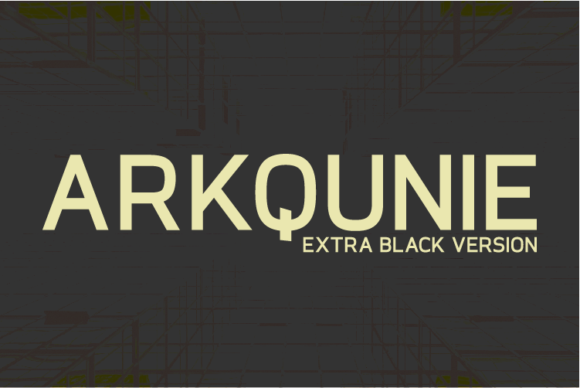
The Ultimate Design Game-Changer: Unleashing the Power of Arkqunie Extra Black Font
Ah, the eternal quest for the perfect font! I still remember the countless hours I spent on a project, searching for a font that would make my design pop. My client wanted something modern, yet approachable; bold, yet elegant. And, of course, it had to be versatile enough to work across various platforms and mediums. That’s when I stumbled upon the Arkqunie Extra Black Font, and let me tell you, it was love at first sight! ✨
• ✅ **Geometric sans serif perfection**: Arkqunie’s clean lines and geometric shapes make it perfect for a wide range of design projects.
• ✨ **Maximum flexibility**: With its casual and versatile design, Arkqunie can be used for headlines, postcards, business cards, logos, letterheads, magazines, posters, and so much more!
• 🔥 **Special features in every corner**: Each letter is carefully crafted with unique features that add a touch of personality to your designs.
• ⚠️ **Limited language support**: While Arkqunie supports a range of languages, it may not cover every language or character set.
• 🤔 **Some glyphs may require manual adjustment**: Depending on the design, you might need to tweak certain glyphs to achieve the perfect look.
The Designer Inspiration Behind Arkqunie
Arkqunie’s creator was inspired by the beauty of geometric shapes and the need for a versatile font that could adapt to various design contexts. With a passion for typography and a keen eye for detail, the designer crafted Arkqunie to be a go-to font for creatives seeking a modern, yet approachable look.
Q: What is the best use case for Arkqunie Extra Black Font?
A: Arkqunie Extra Black is perfect for headlines, titles, and bold statements, but it can also be used for body text and smaller design elements.
Q: Is Arkqunie suitable for multilingual designs?
A: While Arkqunie supports a range of languages, it’s essential to check the font’s language support and character set to ensure it meets your design needs.